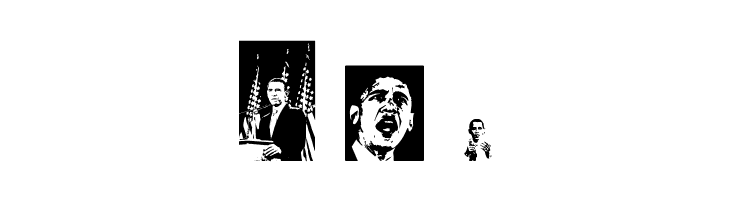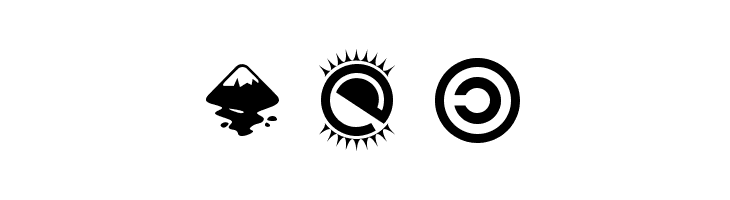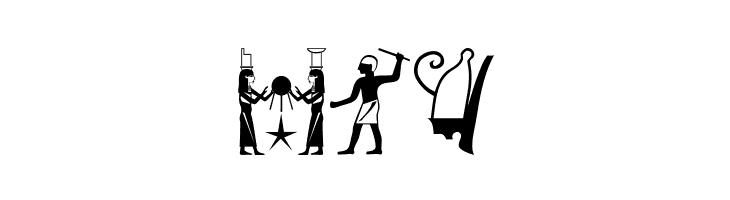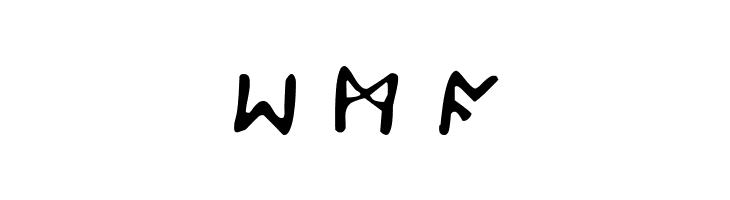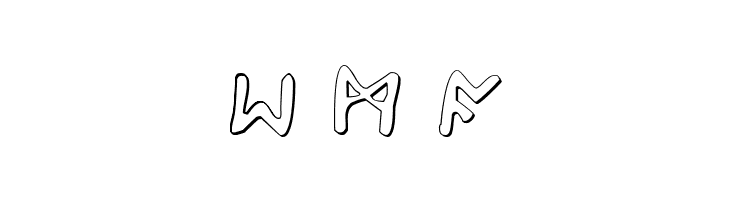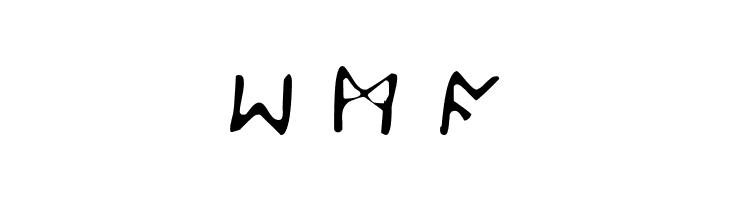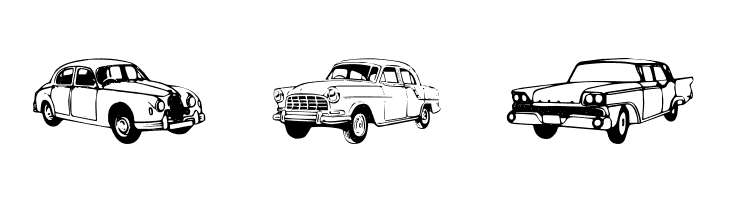
FakeHieroglyphs Font
A decorative font inspired by ancient hieroglyphs, featuring intricate and symbolic designs.
Falline Font
Delicate hand-drawn botanical illustrations with fine lines.
Fallkhar_Runes Font
Intricate, cryptic symbols resembling ancient runes.
Famous Car 1 Font
Bold, high-contrast serif font with classic luxury appeal.
Famous Logos Font
A novelty font composed entirely of famous logos and brand icons.
Famous Spaceships Font
A display font using famous spaceship silhouettes as characters.
FamousBuildings Font
A display font composed of iconic building silhouettes as glyphs.
FamousFolksRegular Font
A decorative font composed of illustrated portraits instead of standard letterforms.
FamousPix Font
A highly decorative and artistic font with unique, intricate designs for each character.
Fancy Fish Font
A decorative font featuring intricate fish designs with flowing lines and detailed patterns.
Fandom Dingbats Font
A playful set of sci-fi and fandom-themed dingbats with a cartoonish, hand-drawn style.
Fanfare Ticker Italic Font
A modern, dotted italic font with a dynamic and creative style.
Fanjofey AH Regular Font
A bold, calligraphic font with intricate details and a modern flair.
Fanjofey Leoda AH Regular Font
A decorative, gothic-inspired font with intricate details and bold strokes.
FANTASMA Font
A dot matrix style font with characters enclosed in circles, offering a retro digital aesthetic.
Fantasmytas St Font
A playful set of ghost-like characters with various facial expressions.
Fantasy Clipart Font
Fantasy-themed clipart dingbat font with detailed illustrations.
Fantasy clipart 2 Font
Fantasy-themed clipart dingbat font with hand-drawn illustrations.
Fantasy Playing Game Regular Font
A whimsical, fantasy-themed font with imaginative, decorative characters.